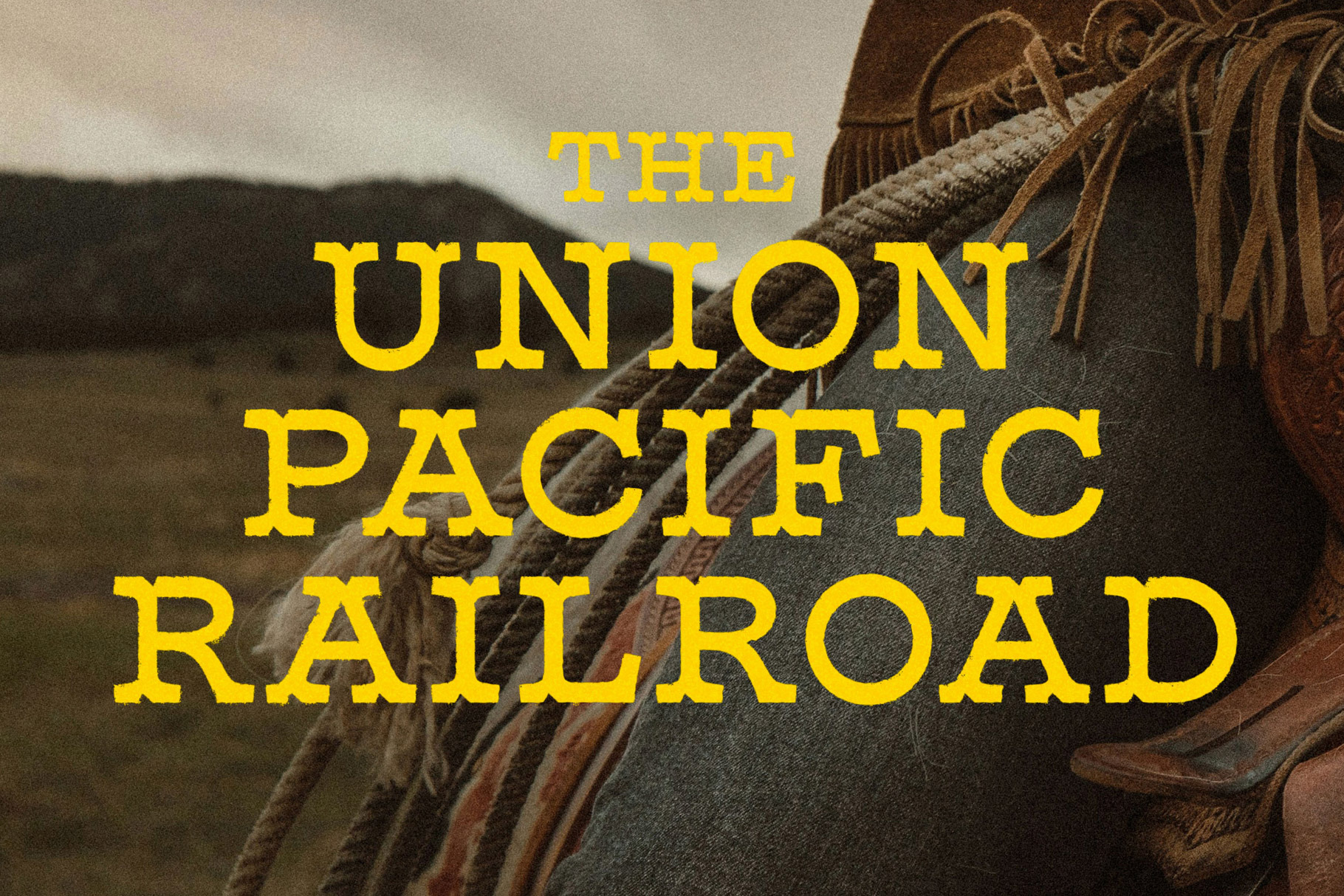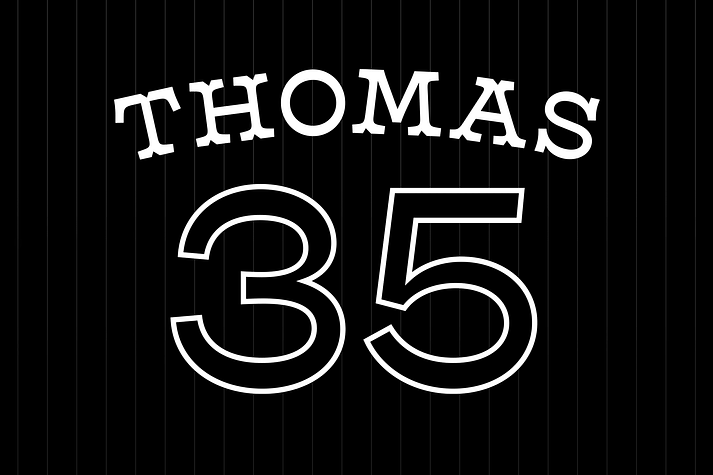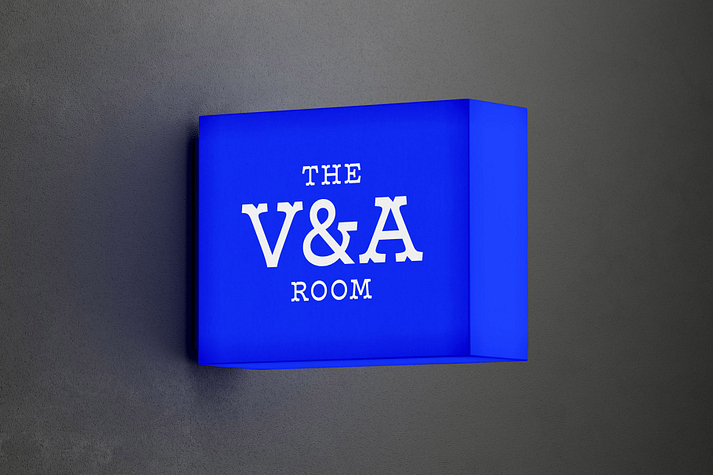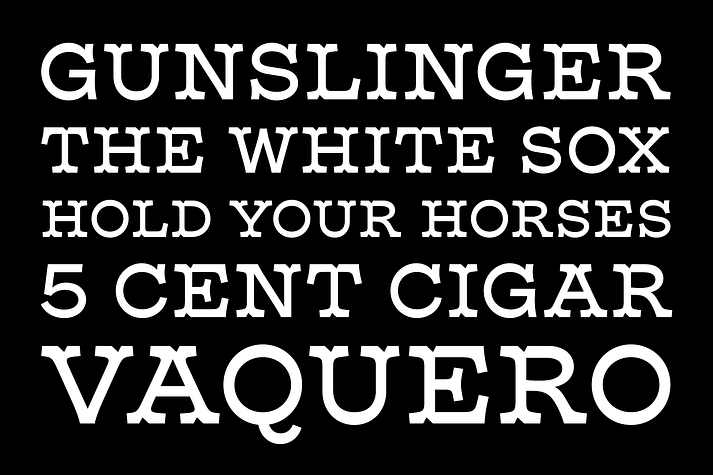
Yeehaw
Yeehaw is a display font family published by Haus Type.
Hot chili peppers in the blistering sun. Yeehaw draws inspiration from the Old West. Smooth curves and jagged edges, along with some sweet reverse contrast, gives Yeehaw its character.